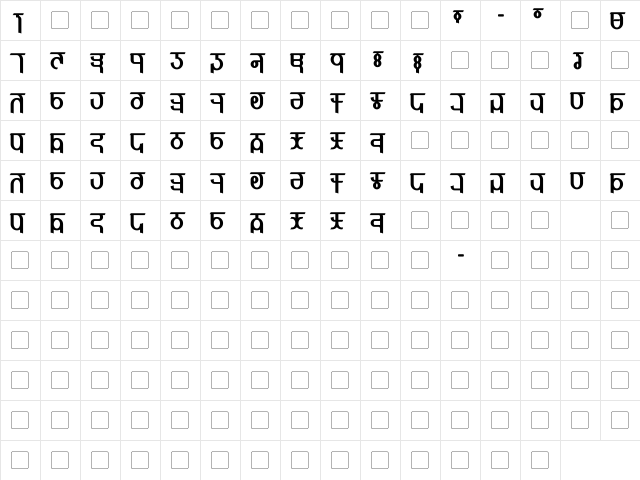
Qijomi Bold Font Preview
Qijomi Bold
Qijomi Bold Font Details
| Foundry | Neale Davidson |
| Designer | Neale Davidson |
Design Context for Qijomi Typeface
Qijomi takes a measured approach to typography — its balanced proportions and neutral character make it a reliable workhorse for both digital and print work. Its bold stroke weight gives it real presence on the page.